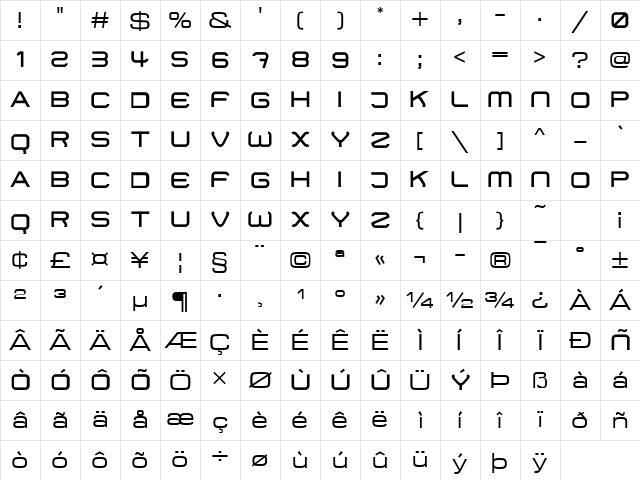
01 DigitMono Regular
Designer: David Chung
Design Context for 01 DigitMono
01 DigitMono has a distinctly futuristic character, with geometric precision and clean angles that feel at home in technology, gaming, and sci-fi contexts.
Pro Tip: Try 01 DigitMono with generous letter-spacing in UI labels and navigation - the geometric forms benefit from room to breathe.